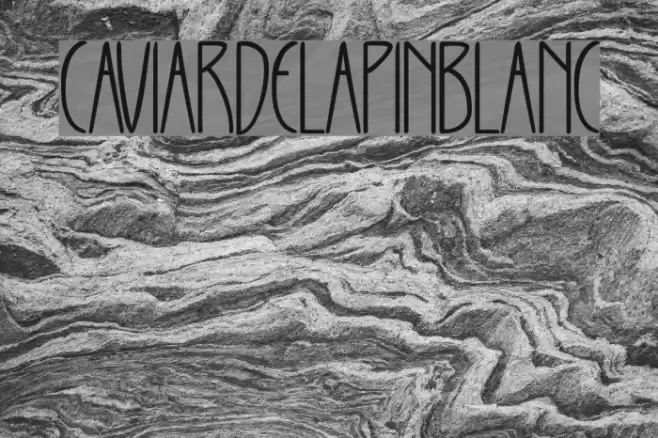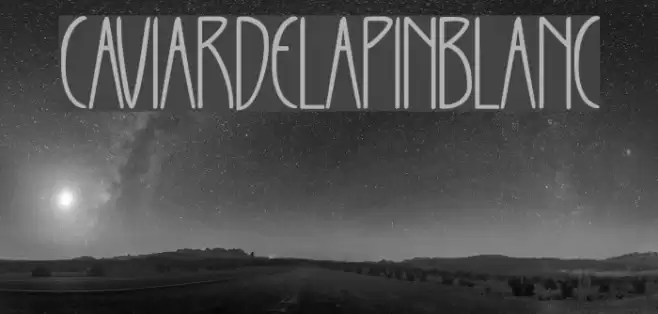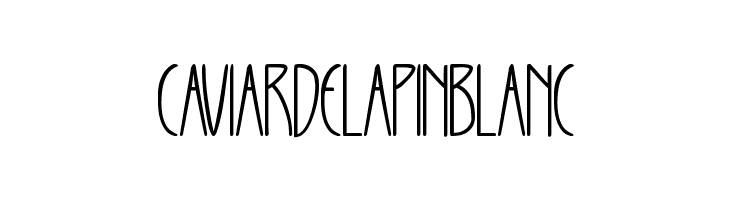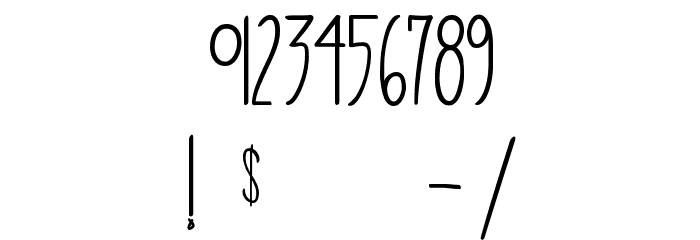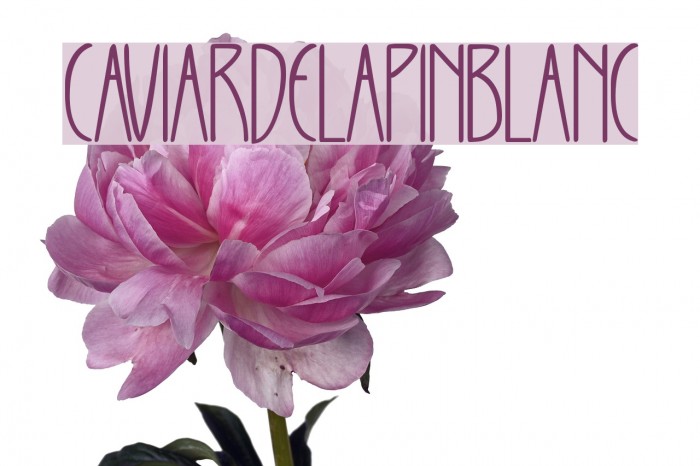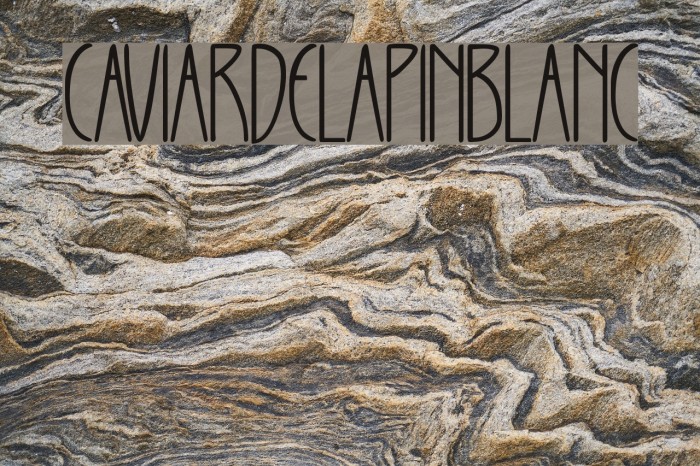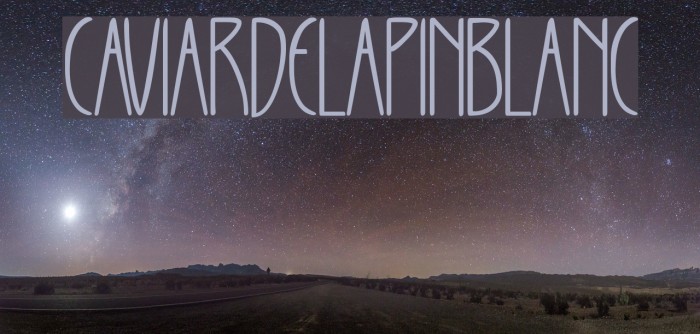
CAVIARDELAPINBLANC Font
CAVIARDELAPINBLANC Description
This font features a tall and narrow design with a distinctively modern and elegant appearance. The characters are elongated with a consistent stroke width, giving it a sleek and sophisticated look. The uppercase letters are particularly striking, with a uniform height and minimalistic style. The lowercase letters maintain the same narrow structure, providing a cohesive appearance across the typeface. Numbers and special characters are designed to match the overall aesthetic, ensuring versatility in various applications. The font's clean lines and geometric shapes make it suitable for contemporary design projects.
A tall, narrow, and modern font with a sleek, elegant appearance from Uncategorized fonts.
- Proposed Projects: Ideal for fashion branding, luxury product packaging, modern editorial layouts, and minimalist logo designs.
- Use Case: Logos, Headlines, Branding